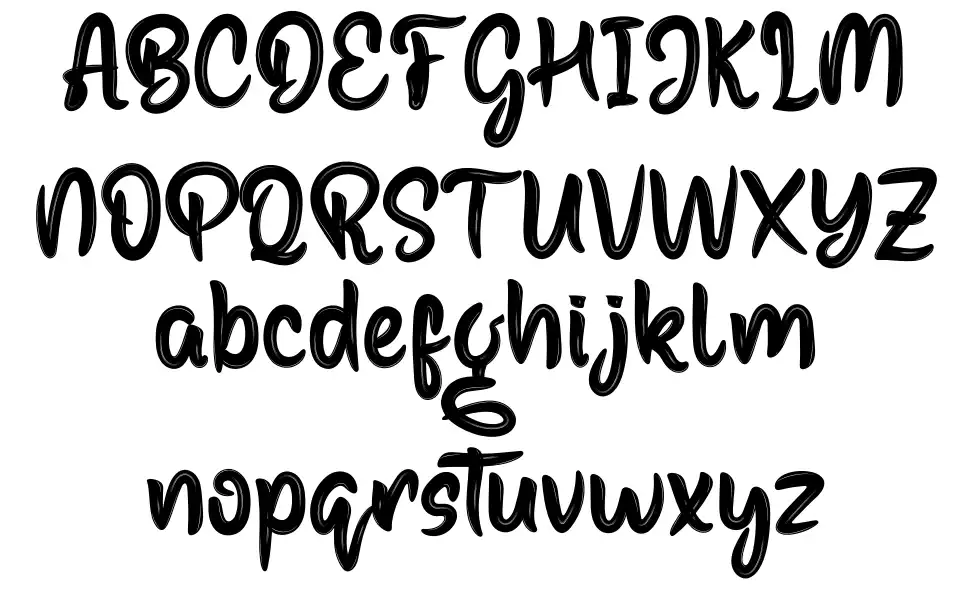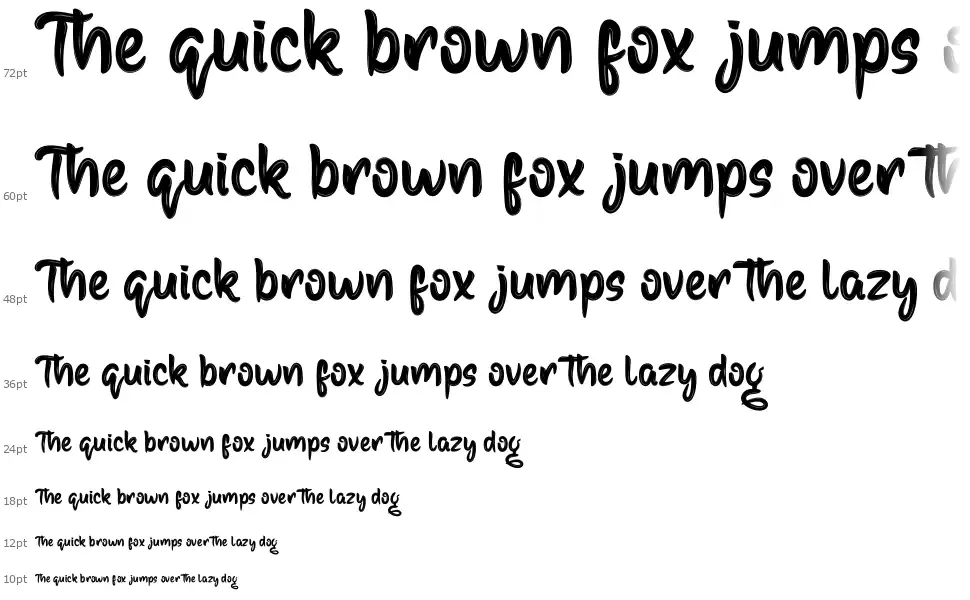
Basting Brush Font . Such as the title, signature, logo, correspondence, wedding. Free download of basting brush font family with 2 styles. Click now to create a custom image with your own words that you can download. Basting brush is a modern brush font, organic, dynamic and energetic sytle.can used for various purposes. Basting brush is a modern brush font, organic, dynamic and energetic sytle.can used for various purposes. Basting brush has been downloaded 1,999 times. This is a cool and casual brush display typeface created by solidtype with the kind of modern hand. The basting brush font has been downloaded 2,033 times. Download and install the basting brush font by stripes studio. Download the basting brush font by stripes studio. Such as the title, signature, logo,.
Basting brush is a modern brush font, organic, dynamic and energetic sytle.can used for various purposes. The basting brush font has been downloaded 2,033 times. Such as the title, signature, logo,. Free download of basting brush font family with 2 styles. Basting brush has been downloaded 1,999 times. This is a cool and casual brush display typeface created by solidtype with the kind of modern hand. Download the basting brush font by stripes studio. Click now to create a custom image with your own words that you can download. Such as the title, signature, logo, correspondence, wedding. Basting brush is a modern brush font, organic, dynamic and energetic sytle.can used for various purposes.
Basting Brush Font This is a cool and casual brush display typeface created by solidtype with the kind of modern hand. Basting brush is a modern brush font, organic, dynamic and energetic sytle.can used for various purposes. Such as the title, signature, logo, correspondence, wedding. This is a cool and casual brush display typeface created by solidtype with the kind of modern hand. Click now to create a custom image with your own words that you can download. Basting brush is a modern brush font, organic, dynamic and energetic sytle.can used for various purposes. The basting brush font has been downloaded 2,033 times. Such as the title, signature, logo,. Download the basting brush font by stripes studio. Download and install the basting brush font by stripes studio. Basting brush has been downloaded 1,999 times. Free download of basting brush font family with 2 styles.
Handdrawn dry brush font. Modern brush lettering. Grunge style alphabet Basting Brush Font Download and install the basting brush font by stripes studio. Such as the title, signature, logo,. Such as the title, signature, logo, correspondence, wedding. Basting brush is a modern brush font, organic, dynamic and energetic sytle.can used for various purposes. Click now to create a custom image with your own words that you can download. The basting brush font has. Basting Brush Font.
Basting Brush Font Family · 1001 Fonts Basting Brush Font Click now to create a custom image with your own words that you can download. Such as the title, signature, logo, correspondence, wedding. Basting brush is a modern brush font, organic, dynamic and energetic sytle.can used for various purposes. The basting brush font has been downloaded 2,033 times. Such as the title, signature, logo,. This is a cool and casual. Basting Brush Font.
Basting font by abahe FontRiver Basting Brush Font Basting brush is a modern brush font, organic, dynamic and energetic sytle.can used for various purposes. Download and install the basting brush font by stripes studio. Free download of basting brush font family with 2 styles. Such as the title, signature, logo, correspondence, wedding. Such as the title, signature, logo,. Basting brush is a modern brush font, organic, dynamic and. Basting Brush Font.
Basting Brush Font Family · 1001 Fonts Basting Brush Font This is a cool and casual brush display typeface created by solidtype with the kind of modern hand. Such as the title, signature, logo, correspondence, wedding. Free download of basting brush font family with 2 styles. Basting brush is a modern brush font, organic, dynamic and energetic sytle.can used for various purposes. Basting brush is a modern brush font, organic,. Basting Brush Font.
Best Brush Stroke Fonts From Script Typography Basting Brush Font Download and install the basting brush font by stripes studio. Basting brush is a modern brush font, organic, dynamic and energetic sytle.can used for various purposes. Such as the title, signature, logo,. Free download of basting brush font family with 2 styles. This is a cool and casual brush display typeface created by solidtype with the kind of modern hand.. Basting Brush Font.
Font Brush Basting Brush Font Basting brush has been downloaded 1,999 times. The basting brush font has been downloaded 2,033 times. Such as the title, signature, logo,. Basting brush is a modern brush font, organic, dynamic and energetic sytle.can used for various purposes. Such as the title, signature, logo, correspondence, wedding. Download and install the basting brush font by stripes studio. Click now to create. Basting Brush Font.
Modern Brush Font Bundle, Brush Font, Adventure Font, Handwritten Font Basting Brush Font Such as the title, signature, logo,. Basting brush has been downloaded 1,999 times. Click now to create a custom image with your own words that you can download. The basting brush font has been downloaded 2,033 times. Such as the title, signature, logo, correspondence, wedding. This is a cool and casual brush display typeface created by solidtype with the kind. Basting Brush Font.
Paint Brush Script Font Basting Brush Font This is a cool and casual brush display typeface created by solidtype with the kind of modern hand. The basting brush font has been downloaded 2,033 times. Basting brush is a modern brush font, organic, dynamic and energetic sytle.can used for various purposes. Basting brush is a modern brush font, organic, dynamic and energetic sytle.can used for various purposes. Download. Basting Brush Font.
26+ Greatest Free Paint Brush Fonts (Prime Types to Obtain in 2023) 3DCOR Basting Brush Font Download and install the basting brush font by stripes studio. This is a cool and casual brush display typeface created by solidtype with the kind of modern hand. Such as the title, signature, logo,. Basting brush is a modern brush font, organic, dynamic and energetic sytle.can used for various purposes. Click now to create a custom image with your own. Basting Brush Font.